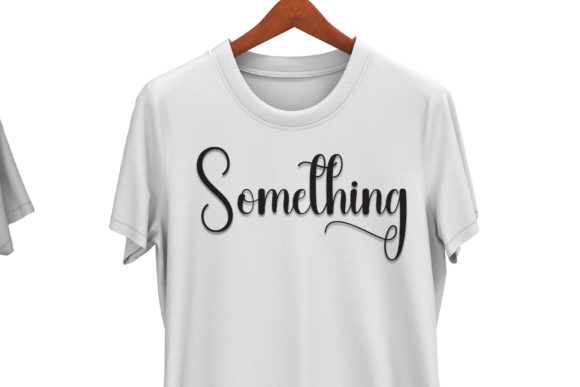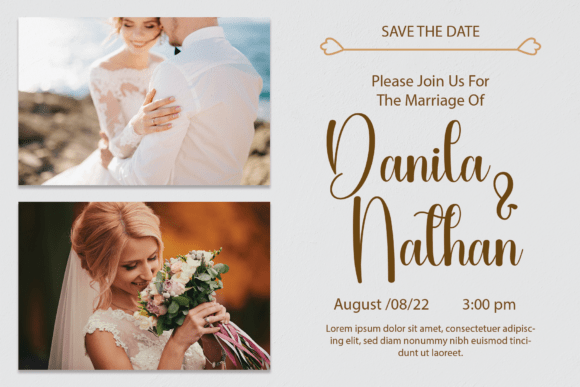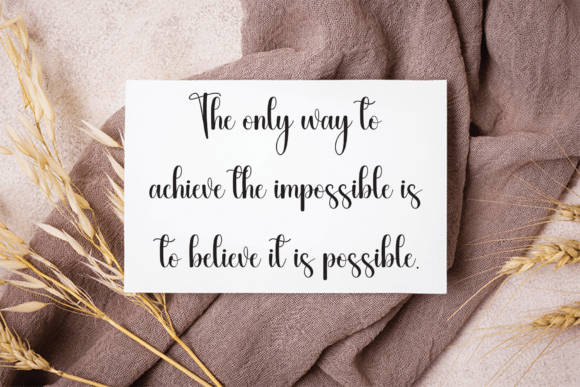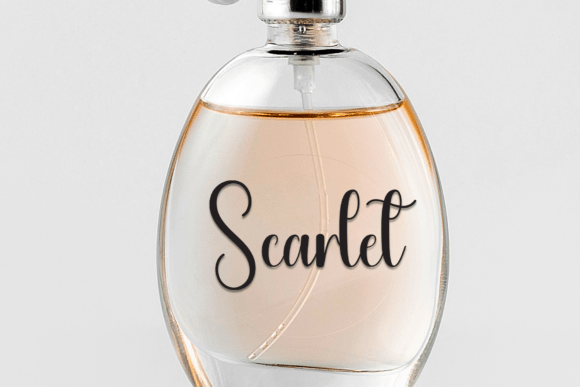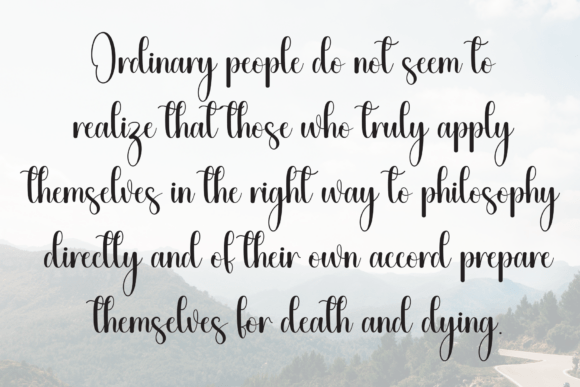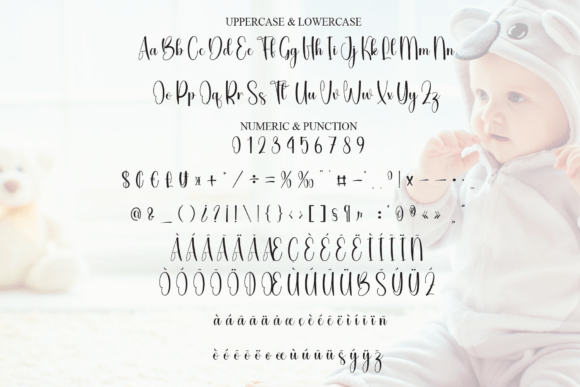
Discover the Art of Handwritten Perfection with Baby Font
Have you ever stared at a blank canvas, searching for the perfect font to bring your creative vision to life? We’ve all been there – the frustration of trying to find the perfect lettering style, the hours spent tweaking and adjusting, only to end up with something that’s just… okay. But what if you could skip all that hassle and find a font that’s as effortless as a gentle breeze?
That’s where Baby Font comes in – a special collection of creative products designed to make your life easier and your designs more stunning. With Baby Font, you’ll have access to the latest style letters, perfect for everything from wall displays to social media post logos. And the best part? It’s incredibly easy to use, working seamlessly with popular design software like Adobe Illustrator, Photoshop, and InDesign.
Baby Font Key Features
- Size: The font comes in 3 different sizes, including a standard version, a condensed version, and an expanded version, catering to different design needs.
- Resolution: The font is designed to be high-resolution, suitable for use in digital and print media, ensuring crisp and clear typography.
- Unique Characteristics: Baby Font features rounded and cursive lines, creating a soft and endearing appearance, perfect for children’s products, nursery decor, and other related designs.
- Font Style: The font offers a single style, providing a consistent look and feel across all applications, making it easier to maintain a cohesive brand identity.
- Language Support: Baby Font supports a wide range of languages, including Latin-based languages, Cyrillic, and Greek, making it a versatile choice for global designs.
Baby Font Review
- Cute and playful aesthetic: The Baby Font is perfect for child-related projects, such as nursery decor or kids’ apps.
- Customizable: You can adjust the font’s size, color, and style to fit your design needs.
- Legibility: Despite its cute appearance, the Baby Font is still easy to read, making it a great choice for text-based projects.
- Limited character set: The Baby Font has a limited number of characters, which can make it difficult to use for longer texts or complex layouts.
- Not suitable for formal projects: The font’s playful nature makes it unsuitable for formal or professional projects, such as business reports or academic papers.
The Baby Font is a great choice for designers working on child-related projects or looking for a cute, playful font. However, its limitations make it less suitable for formal or complex projects. Overall, I’d give it 3.5 out of 5 stars.
Tips for Getting the Most Out of Baby Font
For best results, use Baby Font in conjunction with bright, pastel colors and playful graphics. Experiment with different font sizes and combinations to create a unique and eye-catching design.
Baby Font is ideal for use in nursery decor, baby shower invitations, and children’s party materials. It’s also a great choice for creating a playful and whimsical atmosphere in a child’s bedroom or playroom.